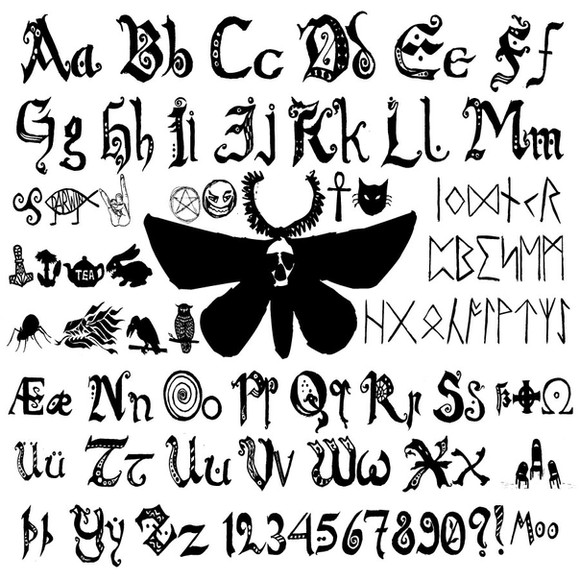
This is a new typeface I've created in Hebrew.Wanted to do this for the last year, but had no rtime, dur to University and other matters.
I call it Arkmar-Cursive (The word "ARKMAR" hs the big one in the middle).
The typeface has most of the normal characters, but some ({}[]<>#$ and others) have been replaced by small drawings, as you can see.
This font is very slightly Gothic, reminding of my older, Gothic fonts.
hah. bro. you realize you spelled "arkzar, right? that's totally a zayin, not a mem.
you would be amazed how many people thing letters have to connect to be cursive
Hebrew cursives do not connect. And anyway, this font is more closely related to Italics.
The characters were first drawn by hand and photoshopped.